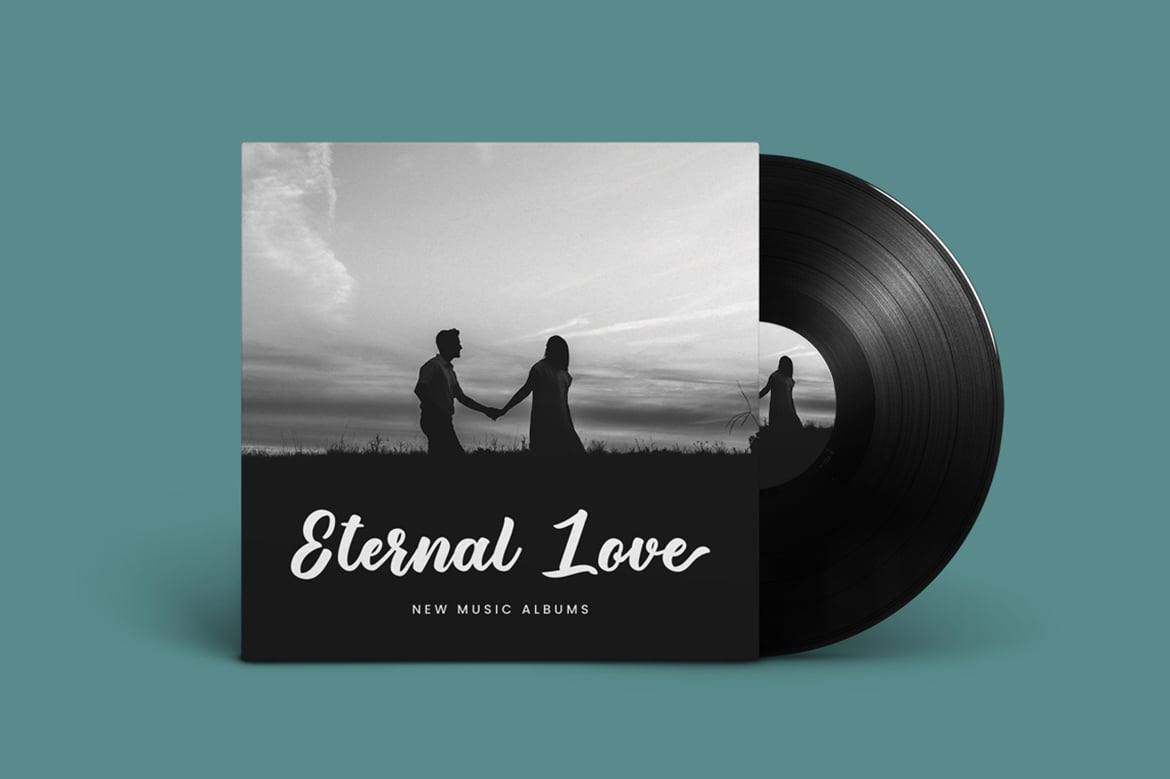
The Spettaco – Vintage Lettering Font
This is our latest product called The Spettaco. The Spettaco is a brush calligraphy with beautiful and cool curves.